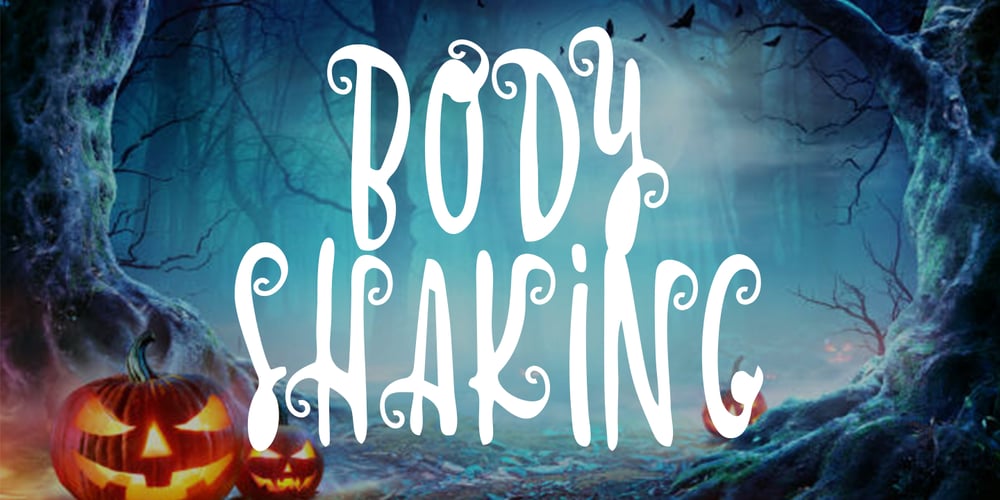
Body Shaking Font Family was designed by Teuku Saifullah and published by Shape Studio. Body Shaking contains 1 styles and family package options. Introducing “Body Shaking”Body Shaking- A Halloween FontYou Can Mix And Match for Your Awesome ProjectThis fonts is ideal for crafting, branding and decorate your any project. This fonts are perfect for wedding invitation or your blog. Also with their help, you can create a logo or beautiful frame for your home. Or just use for your business, book covers, stationery, marketing, magazines and more.FEATURES : Uppercase & Lowercase Number & Punctuation Multilingual Language PUA Encode